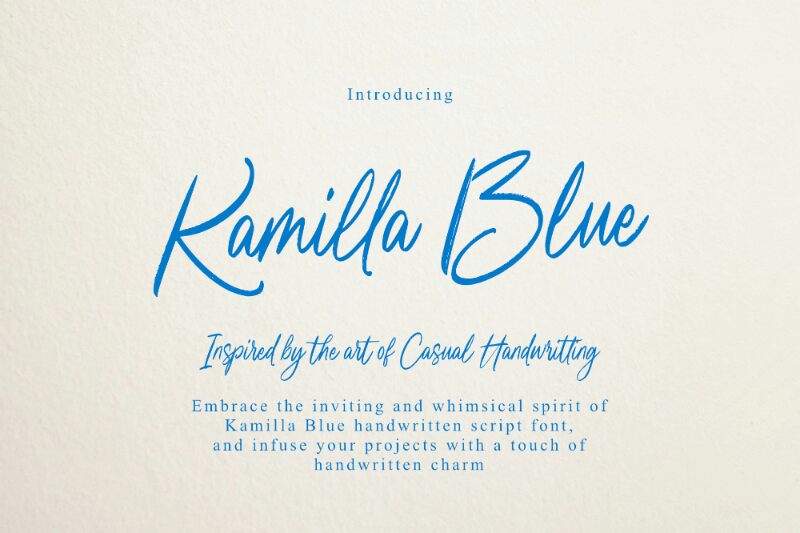
Kamilla Blue font, crafted by Ardian Nuvianto of Damarletter, embodies a captivating handwritten style that exudes warmth and personal flair. Its flowing curves and fluid lines create an inviting aesthetic, reminiscent of elegant calligraphy with a contemporary twist. The distinctive lightness imparts a sense of delicacy, while the rhythmic spacing adds a dynamic quality.
Ideal for branding, invitations, or creative projects, Kamilla Blue transforms everyday text into an expressive visual narrative. Whether enhancing the charm of wedding stationery or lending authenticity to product packaging, this font thrives in settings that seek to evoke emotion and connection. Its unique character effortlessly bridges the gap between casual and sophisticated design, making it a versatile choice for any creative endeavor.
Kamilla Blue
Damarletter
Ardian Nuvianto